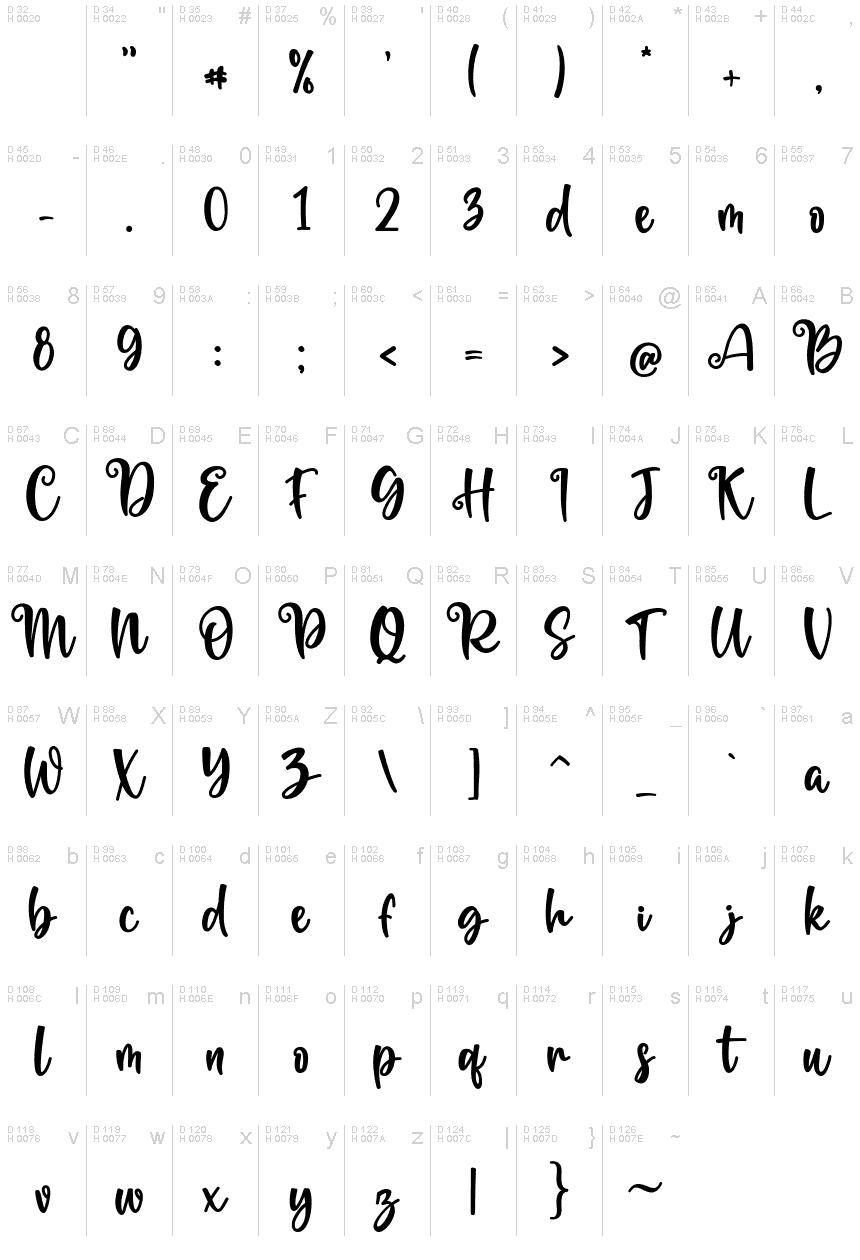
Moderna_Demo
Moderna font is a minimalist script type fonts. Moderna font is a sophistication with its lettering. The script font is typical, with its loops and exaggerations.